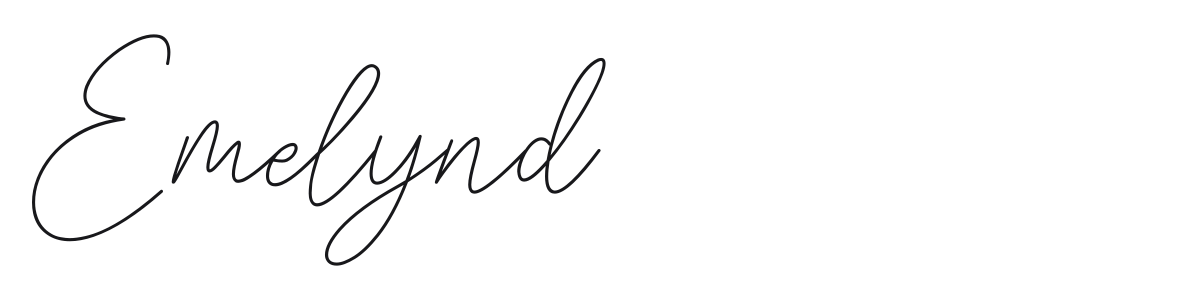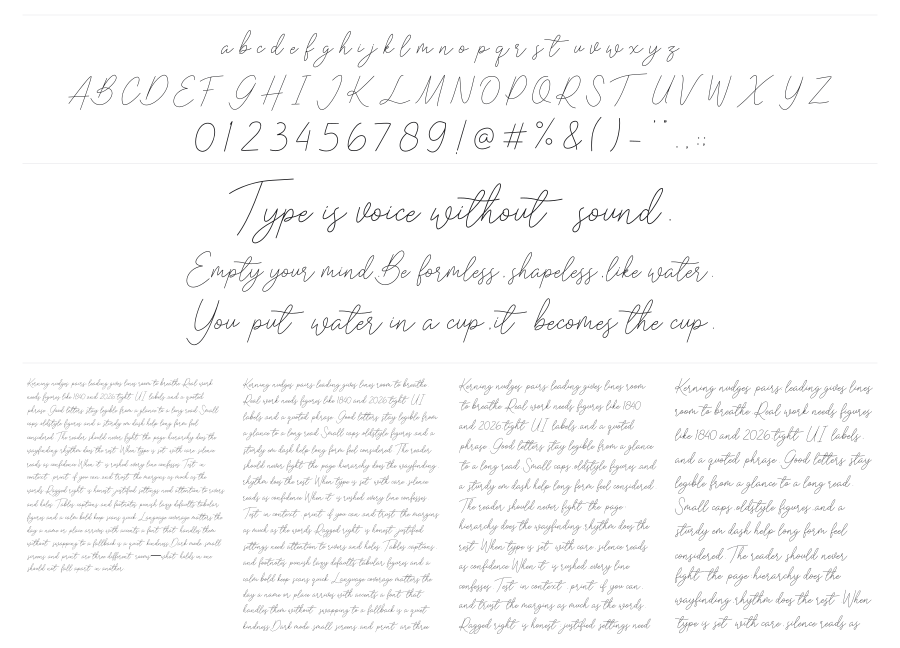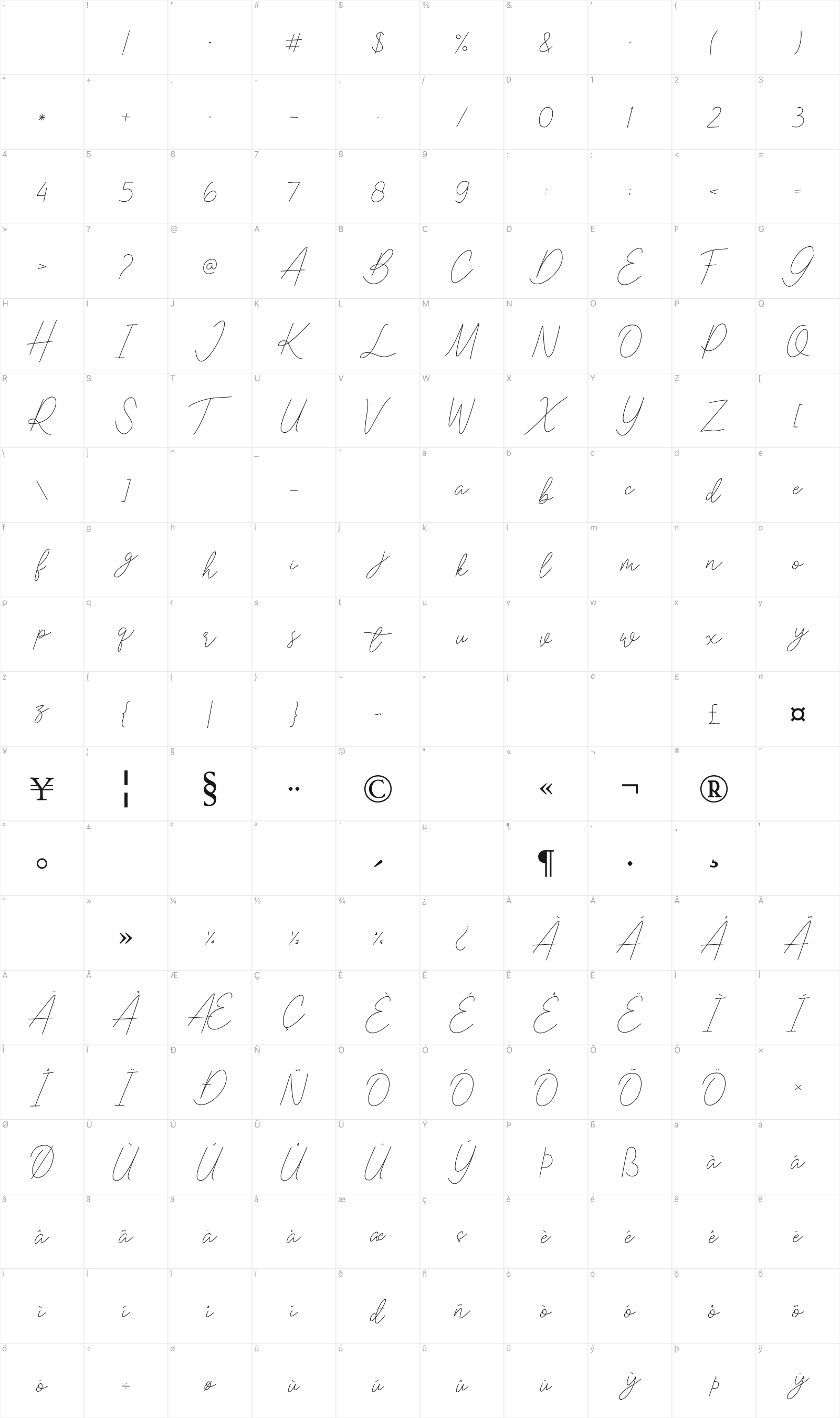
Emelynd
Emelind is a thin, flowing connected script with long looping ascenders and sweeping calligraphic strokes. Its airy, near-monoweight construction gives it a light, romantic quality that reads confidently at large sizes. A natural choice for wedding stationery, packaging, and brand identity work in the beauty or lifestyle space.